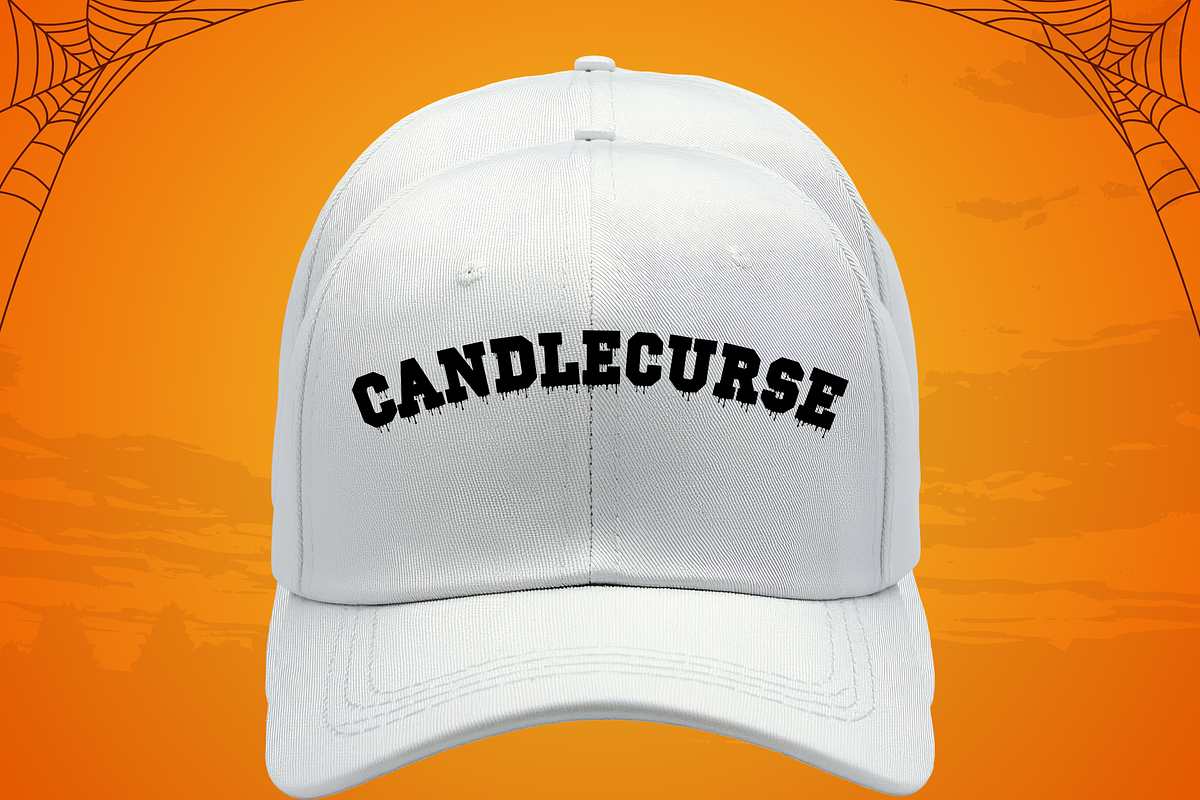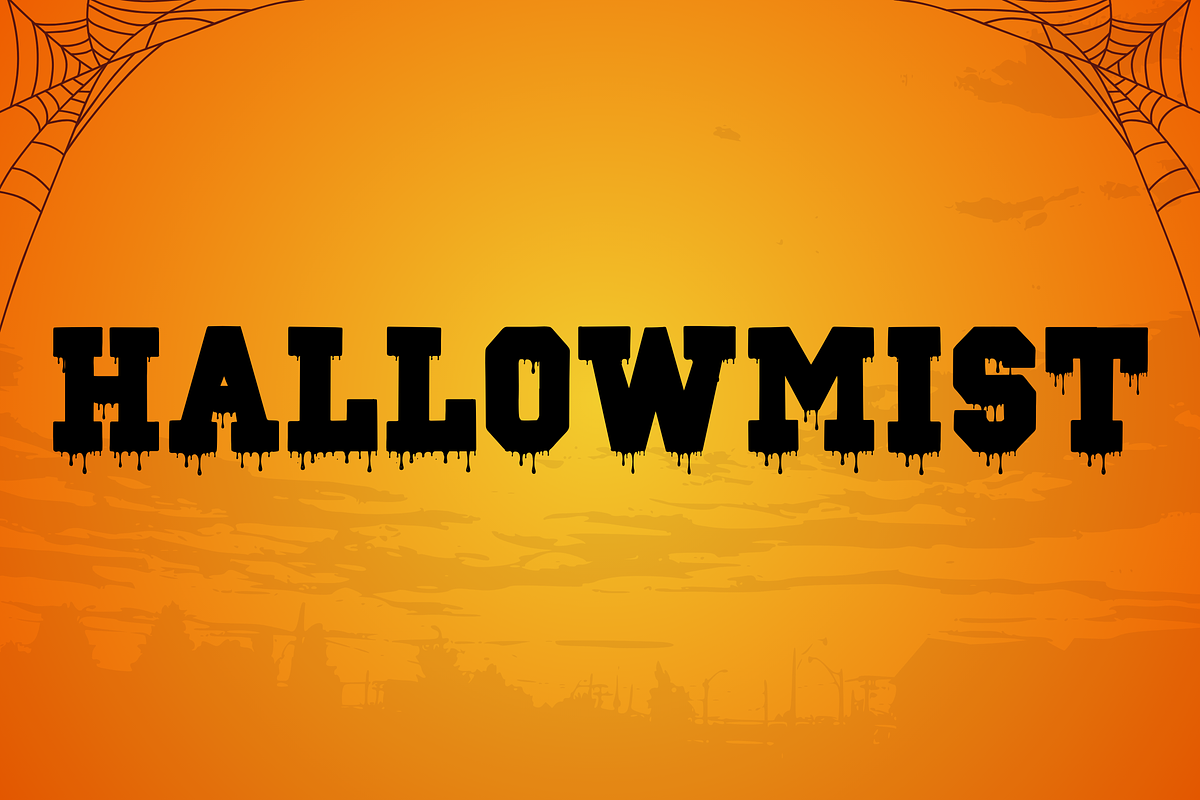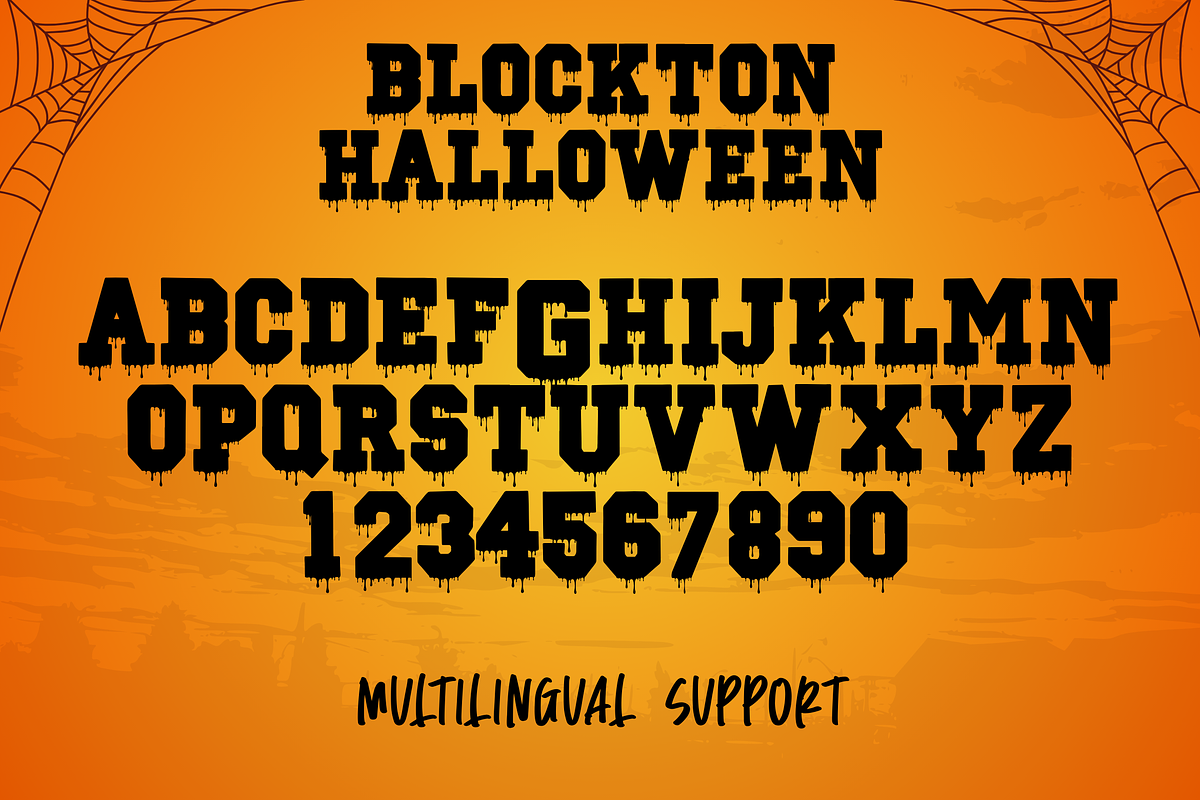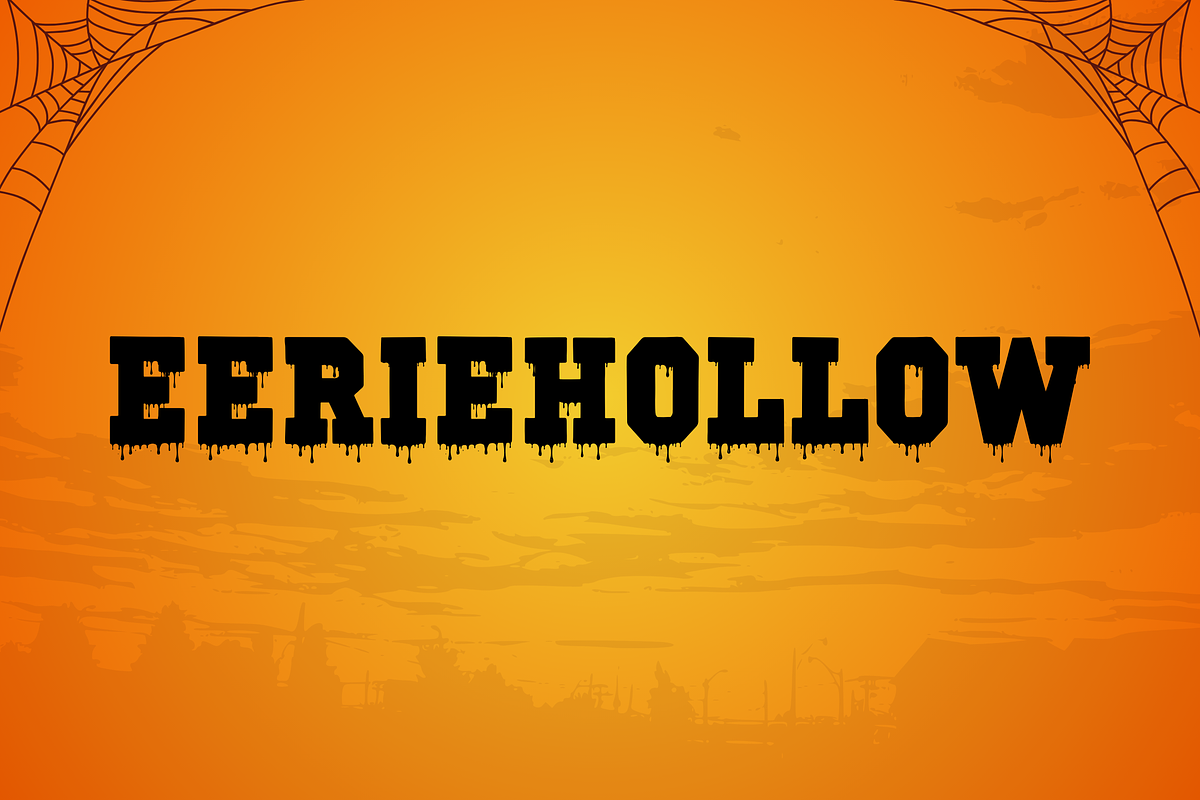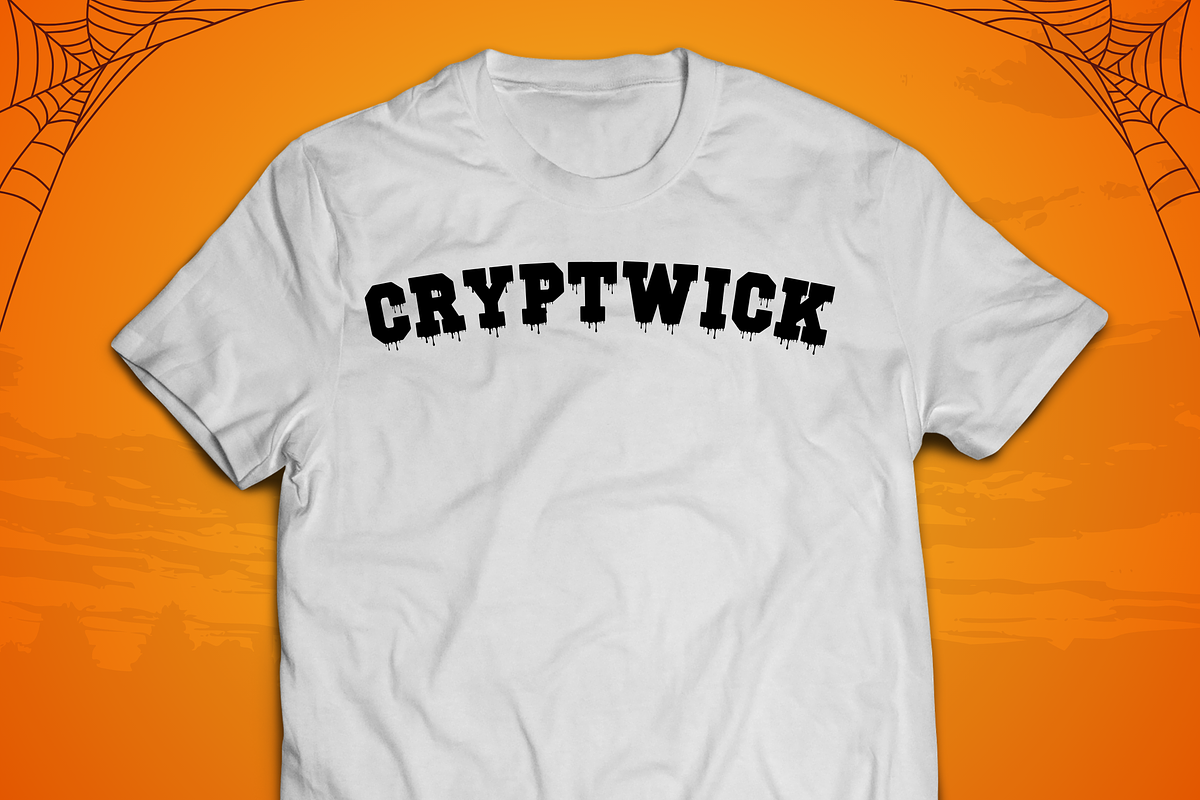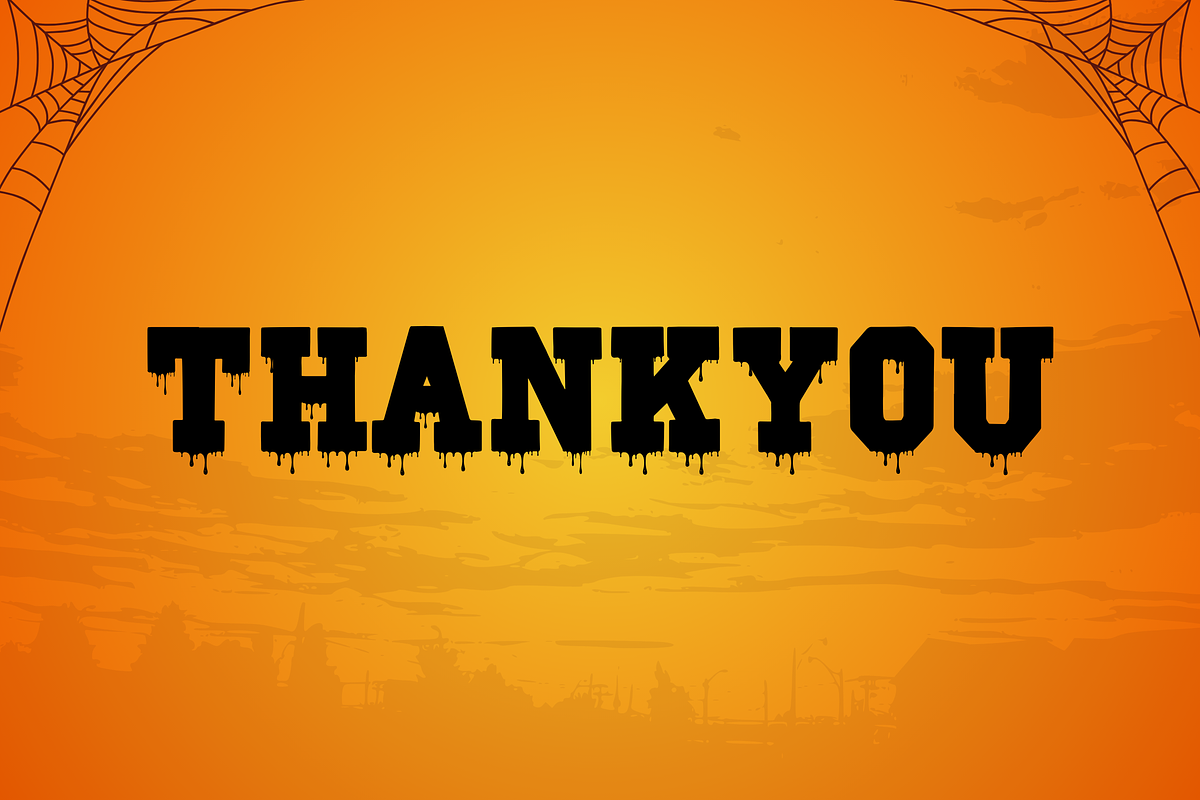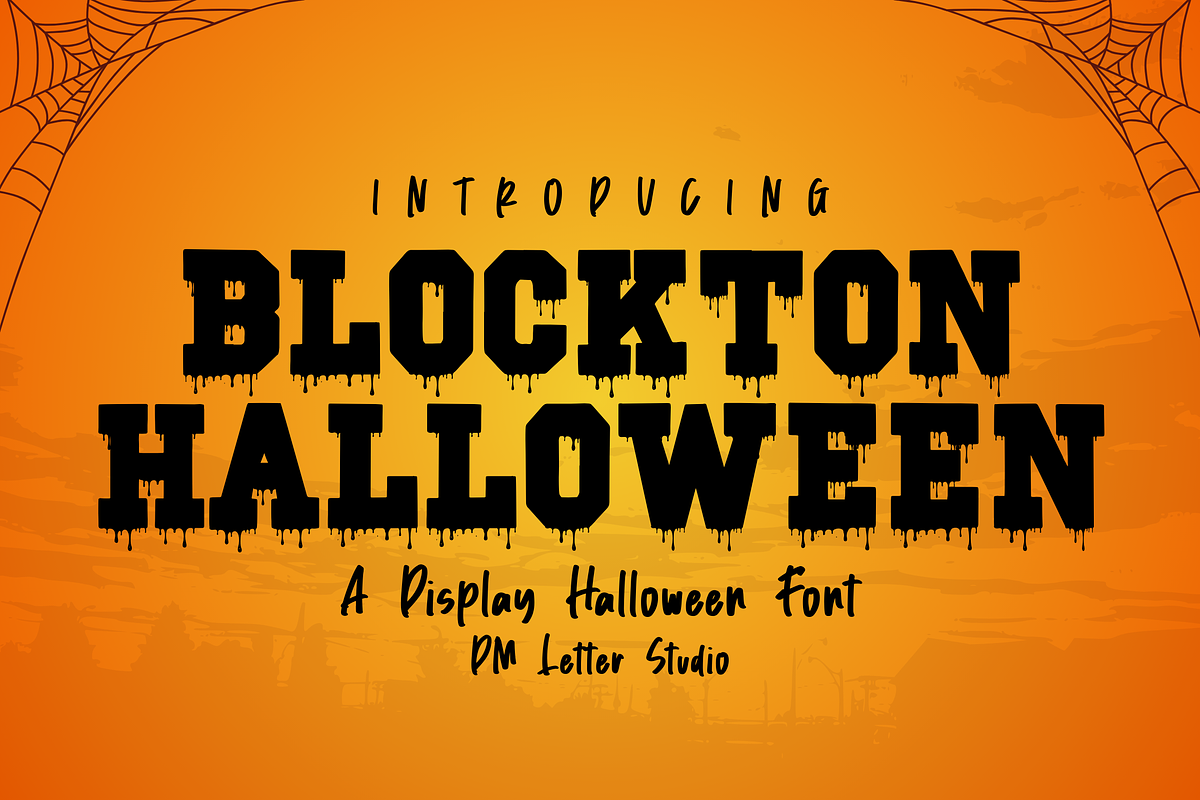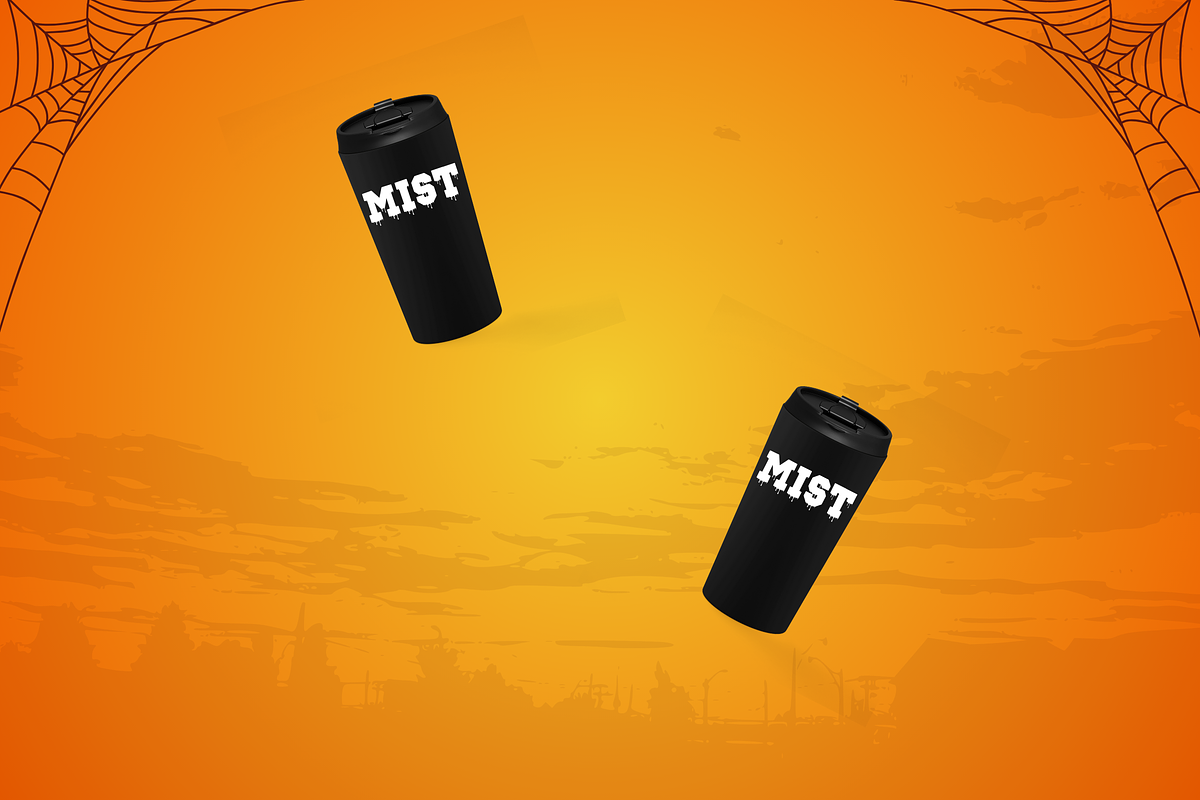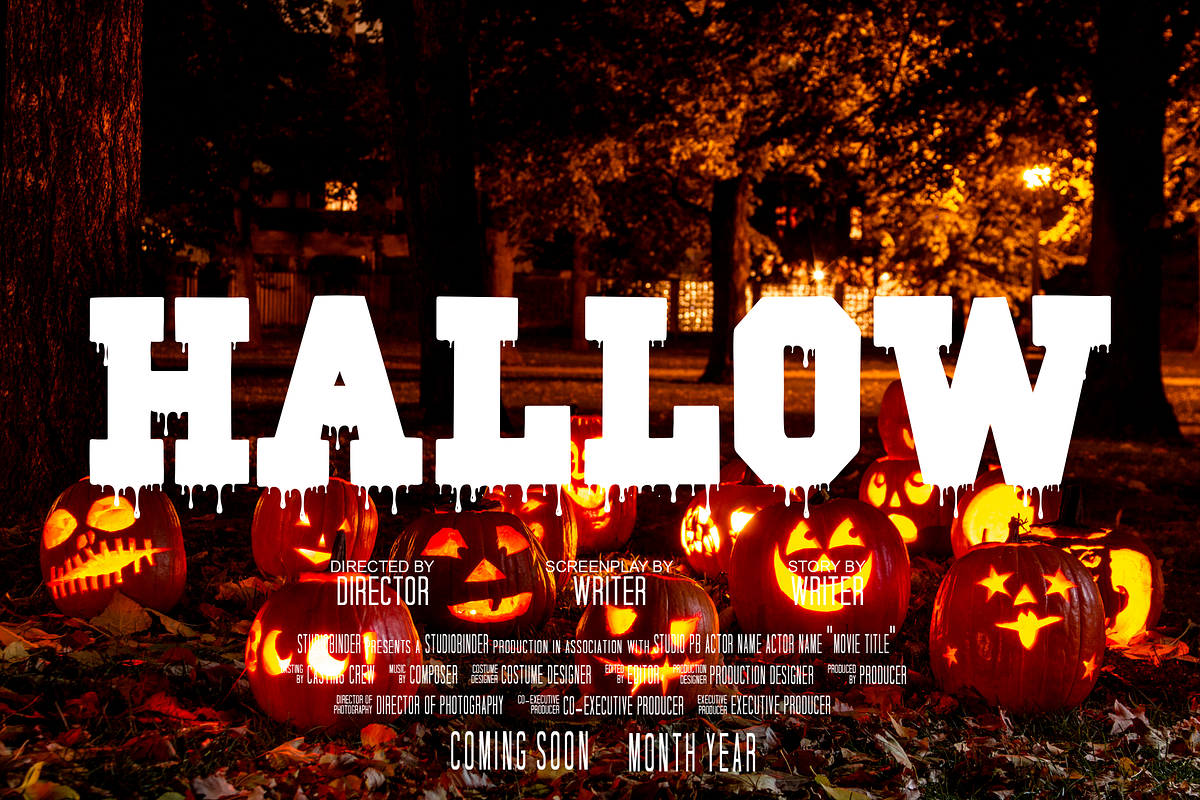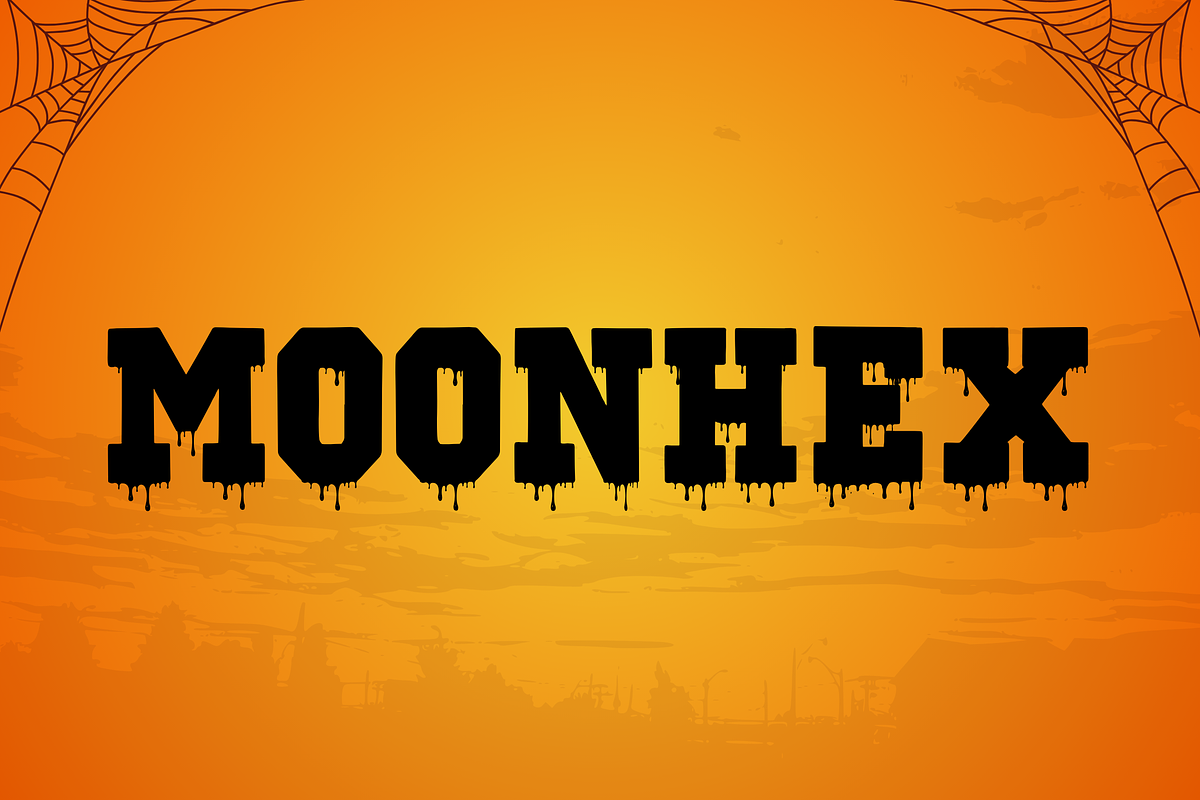
Blockton Halloween
Meet Blockton Halloween, the Bold Spooky Display Font
Blockton Halloween is a bold block display font with a spooky, playful Halloween twist. It keeps the strong, chunky structure of Blockton while adding a darker seasonal mood that feels fun, bold, and easy to read. The letterforms are thick and balanced, so they stay clear on everything from small stickers to large posters. Use it for cards, party posters, packaging, apparel, stickers, classroom decor, and seasonal branding. As a result, your designs feel spooky, bold, and instantly eye-catching.
Fast layouts with the Blockton Halloween Font
Start with short, punchy phrases and let the bold shapes lead. After that, add supporting text in a clean sans font for contrast. Because Blockton Halloween has strong geometry, it works especially well in badges, stacked layouts, and boxed designs. In addition, it shines on labels, signs, stickers, and printable decorations. Finally, try color pairs like black & orange, purple & lime, charcoal & bone, or blood red & cream to lock in the vibe.
Creative uses and quick wins
Halloween cards, posters, and party signage
Gift labels, stickers, and spooky packaging
Classroom decor and trick-or-treat designs
Apparel, totes, mugs, and seasonal merch
Design tips for Blockton Halloween Font
Keep text short so the bold shapes stay spooky and clear. Also, give letters enough spacing for small prints like tags and stickers. For extra Halloween flair, pair it with icons like pumpkins, bats, or ghosts. Finally, export at 300 DPI for print and at 2× size for web so edges stay crisp everywhere.